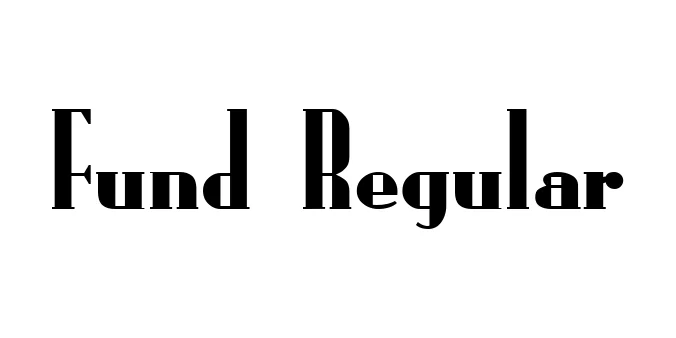
Fund Regular
Fund Regular is a distinct display serif typeface characterized by its bold, sturdy letterforms and a touch of vintage flair. Developed by Alit Design, this font is meticulously crafted to deliver a powerful aesthetic that commands attention in any design environment. Its high-contrast strokes and sharp serifs make it an excellent choice for impactful headlines, ensuring that the message is conveyed with both authority and sophistication.
In the professional realm, Fund Regular is frequently utilized for branding projects, particularly within the finance and luxury sectors. The font's structured design ensures high legibility while maintaining a unique personality that sets it apart from more traditional serif fonts. Whether it is used for logo design, sophisticated editorial layouts, or high-end marketing collateral, it provides a reliable and polished look that resonates with corporate audiences.
Fund Regular Best Uses
Perfect for creating strong, professional brand identities.
Excellent for high-impact headlines and title pages in magazines.
Ideal for financial and professional service firm materials.
Great for promotional banners requiring a bold and trustworthy presence.